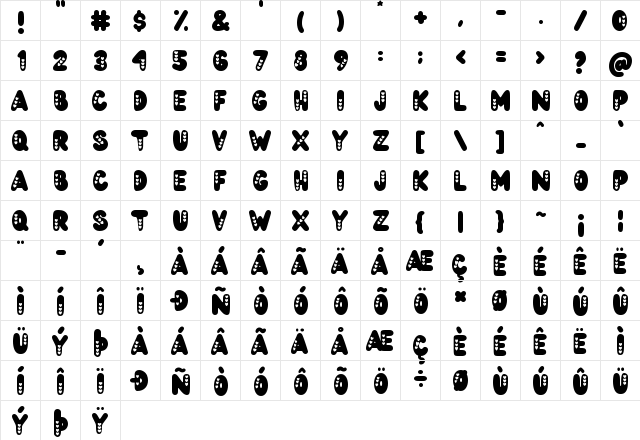
Complete Bubble Valentine Regular glyph index. Displaying only characters natively supported by Bubble Valentine Regular font.
Bubble Valentine has an approachable, lighthearted character - its loose, expressive forms are well-suited to children's content, casual branding, and fun-first design.
Font Pairing: Pairs well with a rounded or humanist sans for body copy, maintaining the friendly tone without relying on Bubble Valentine to carry extended reading.
Pro Tip: Use Bubble Valentine at larger display sizes where its expressive character can land. Pair with a clean, simple sans for body copy to maintain readability.